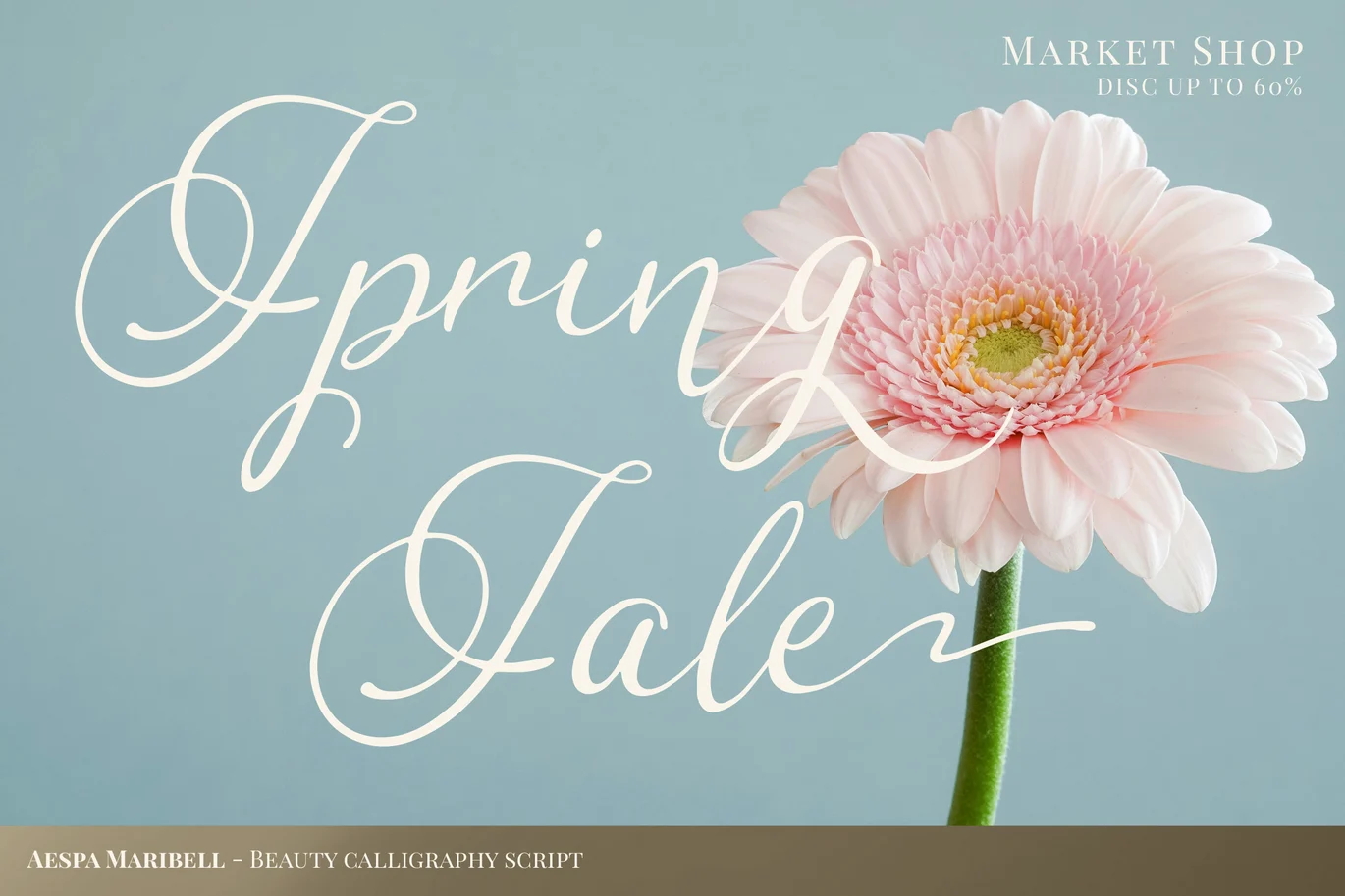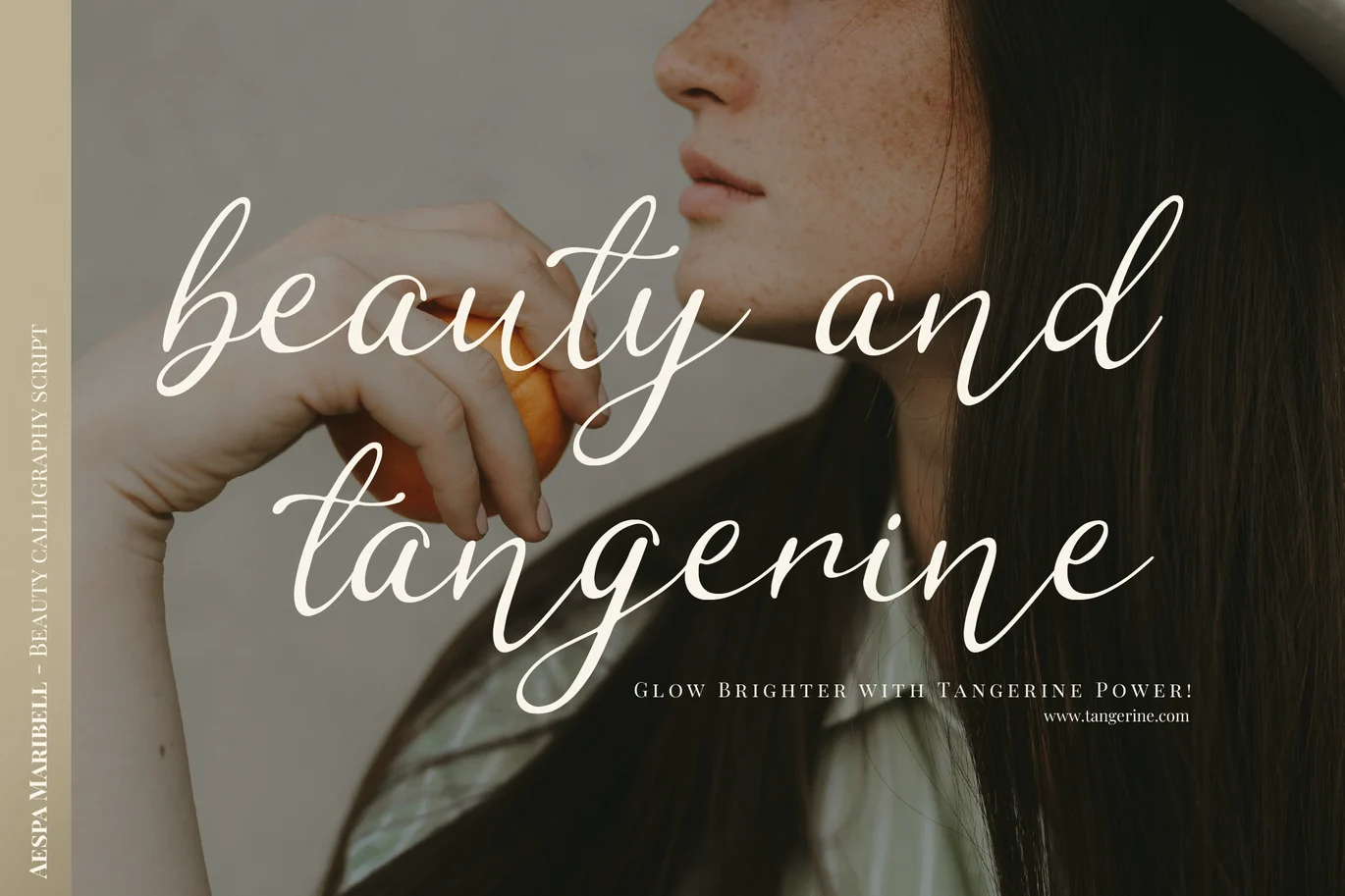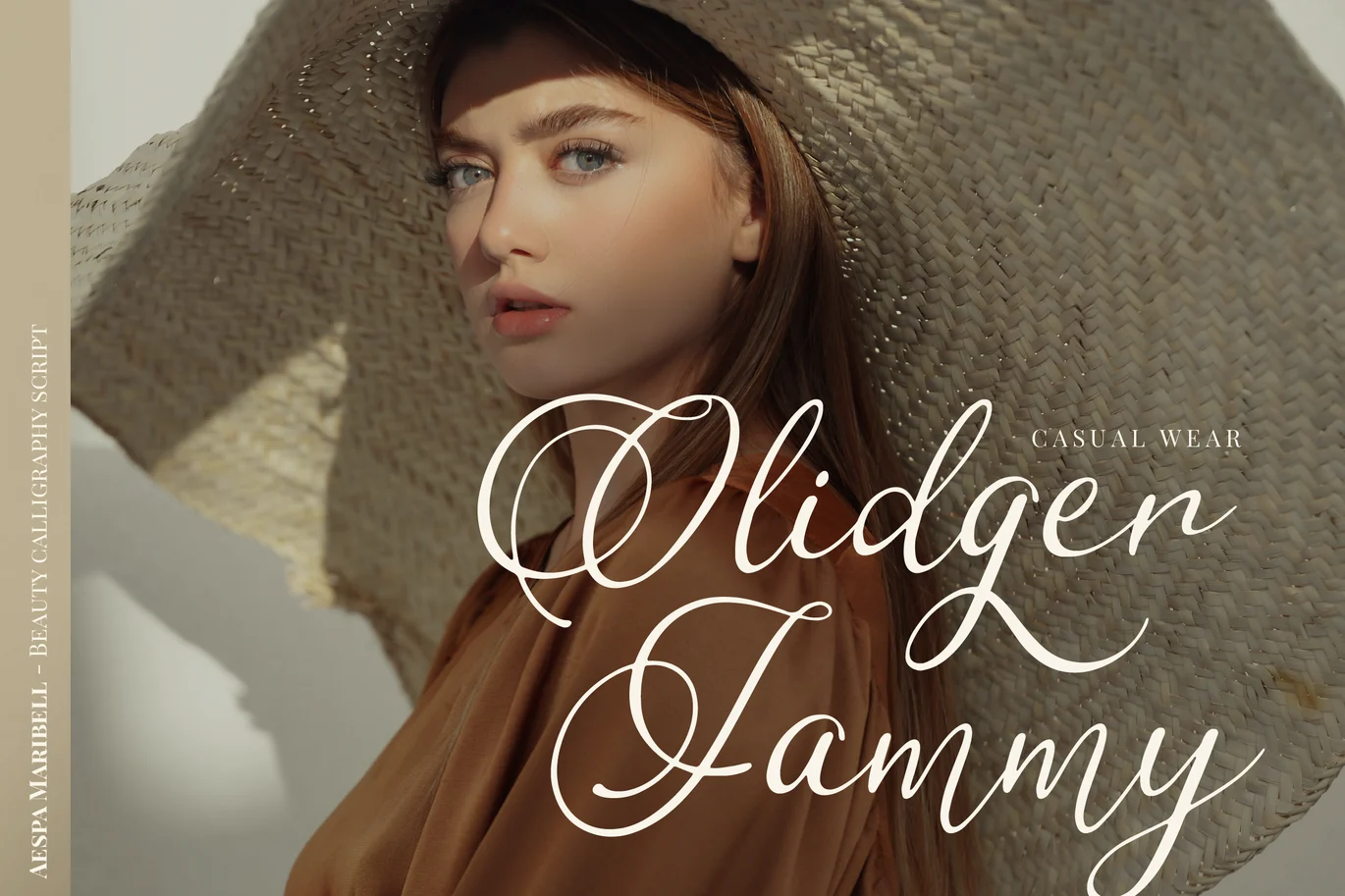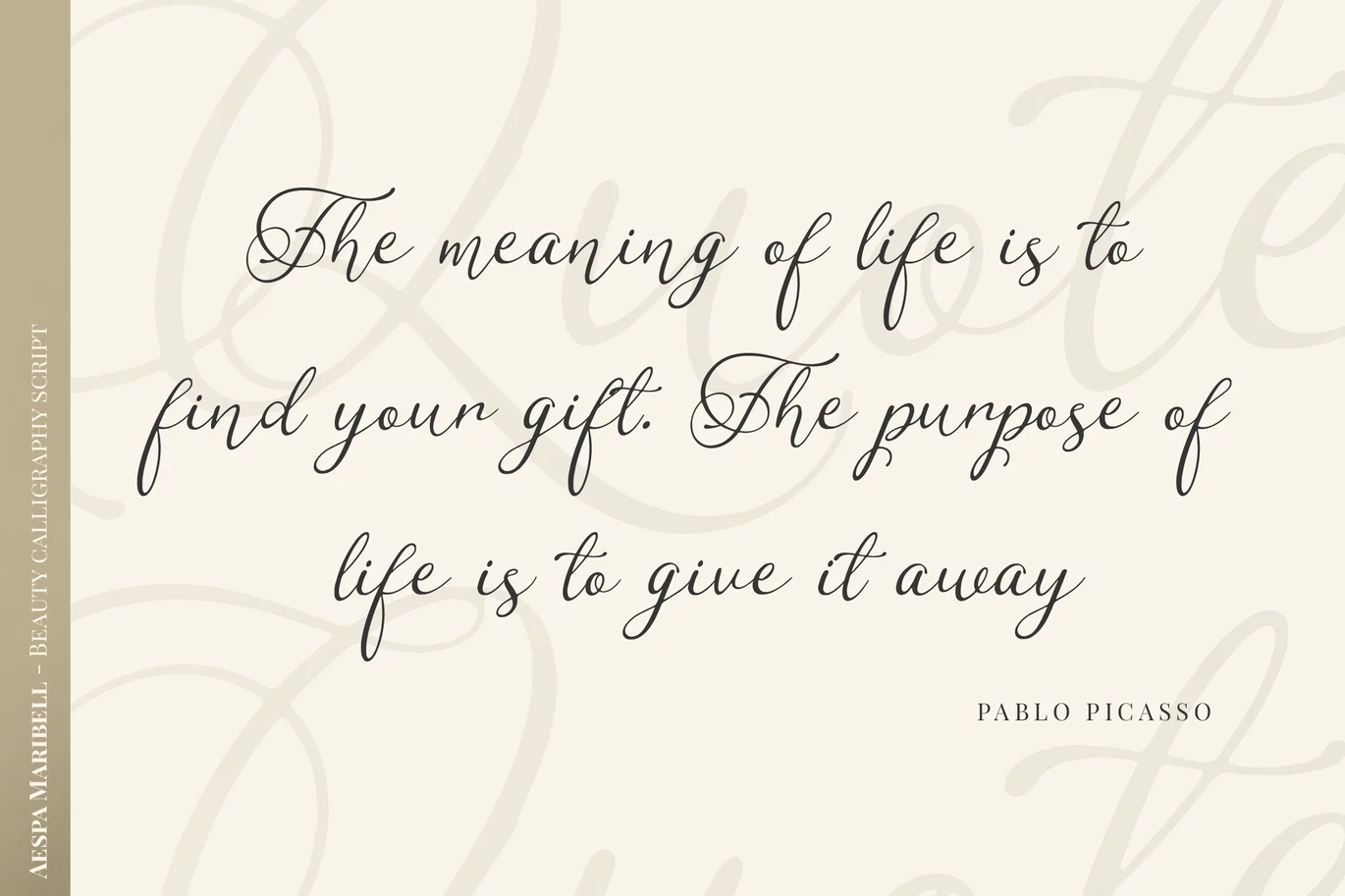
Aespa Maribell Calligraphy Script Font
Aespa Maribell font is designed to deliver a strong, versatile visual character, balancing aesthetics and readability. Every detail is carefully crafted to ensure a clear, consistent, and visually appealing result across a wide range of design needs.
With well-structured letter proportions and support for features such as alternate characters and ligatures, this font allows for greater creative exploration. The final result is dynamic, distinctive, and professional, making it adaptable to a range of design styles.